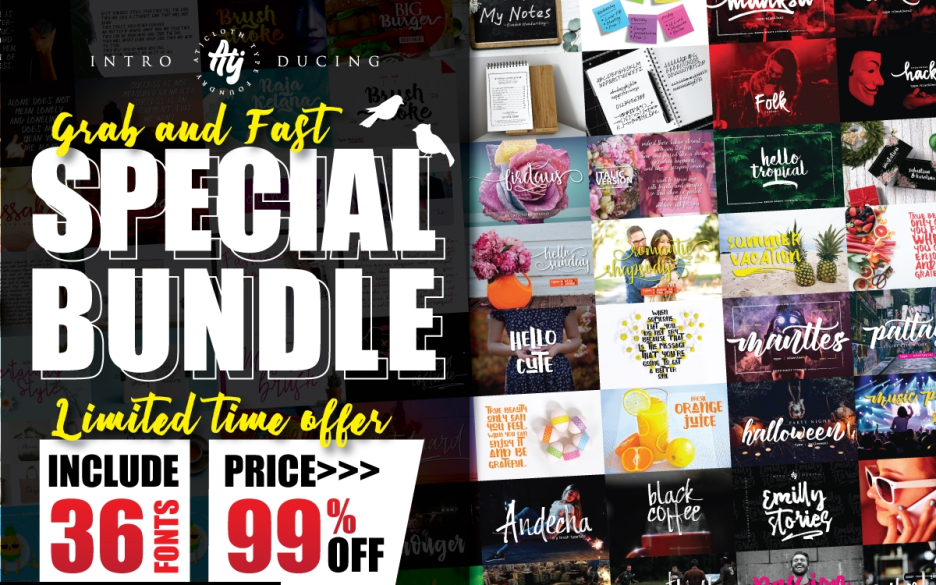
Special Font Bundle
The Special Font Bundle offers a diverse collection of unique typefaces, perfect for various design projects. This bundle includes a variety of font styles and weights, ensuring you have the right typography for any application.
• Multiple font styles: serif, sans-serif, script, and display
• Various weights: light, regular, bold, and extra bold
• 20 unique fonts
Each font in this bundle is designed with attention to detail, providing clear readability and aesthetic appeal. Ideal for branding, logos, web design, print materials, and user interfaces.